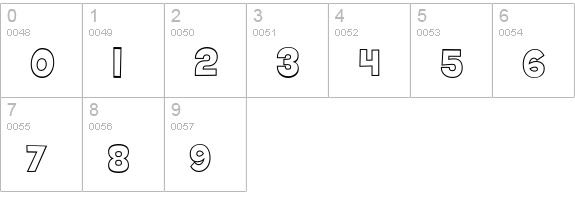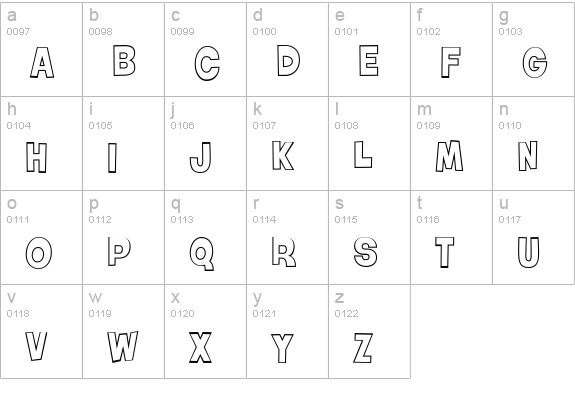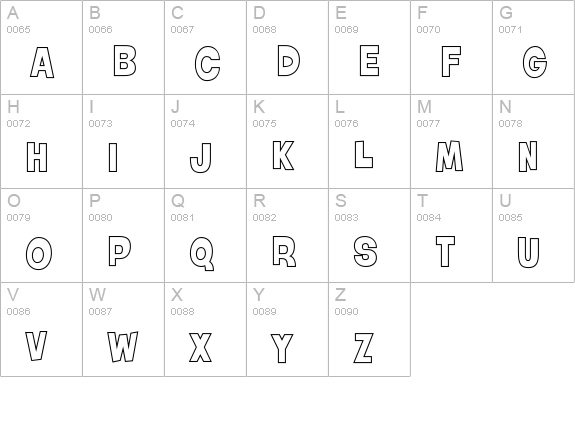
Roller World BTN Bold Out is a strong, high-contrast variant in the Roller typeface family \xE2\x80\x94 well suited to headlines, attention-grabbing titles, and strong calls-to-action.
Roller World BTN Bold Out font is a bold and dynamic typeface that captures the essence of adventure and excitement. With its rugged and edgy design, this font is perfect for conveying a sense of action and energy in your projects. Whether you are designing posters, logos, or any other creative work, Roller World BTN Bold Out font will make a bold statement. The best part is that Roller World BTN Bold Out font is completely free to download at FontsMarket.com. This means you can add this eye-catching font to your collection without any cost. Don't miss out on the opportunity to use this striking typeface in your designs and bring a touch of boldness to your projects. Download Roller World BTN Bold Out font now and unleash your creativity!